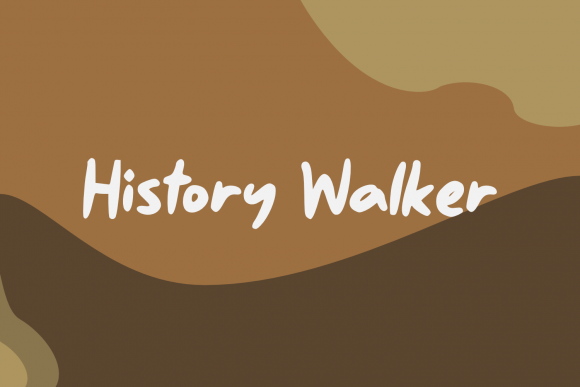
Journey into the world of History Walker, a script font that embodies the true essence of creativity. Dive into its flowing curves, each stroke capturing the raw energy of handwritten artistry. Designed by GartypeStudio, History Walker is more than just a font; it's a gateway to transforming your projects into breathtaking pieces of art.
Immerse yourself in the limitless possibilities of History Walker, the ultimate font for art labels. Its natural and contemporary style adds a touch of sophistication and uniqueness to every design. Whether you're crafting custom prints, designing eye-catching logos, or creating stunning social media graphics, History Walker is your ticket to making an unforgettable impression.
With History Walker, the boundaries of creativity dissolve, inviting you to explore a realm of endless variations. Its user-friendly design allows you to effortlessly adapt it to your artistic vision, seamlessly blending with the essence of your project. From whimsical illustrations to elegant calligraphy, History Walker empowers you to unleash your imagination and redefine the boundaries of artistic expression.
Unlock the power of History Walker today and embark on a creative journey that knows no limits. Its versatility and charm will ignite your passion for design, transforming ordinary projects into extraordinary masterpieces. Let History Walker be your muse as you weave your creative magic into the fabric of the digital world.